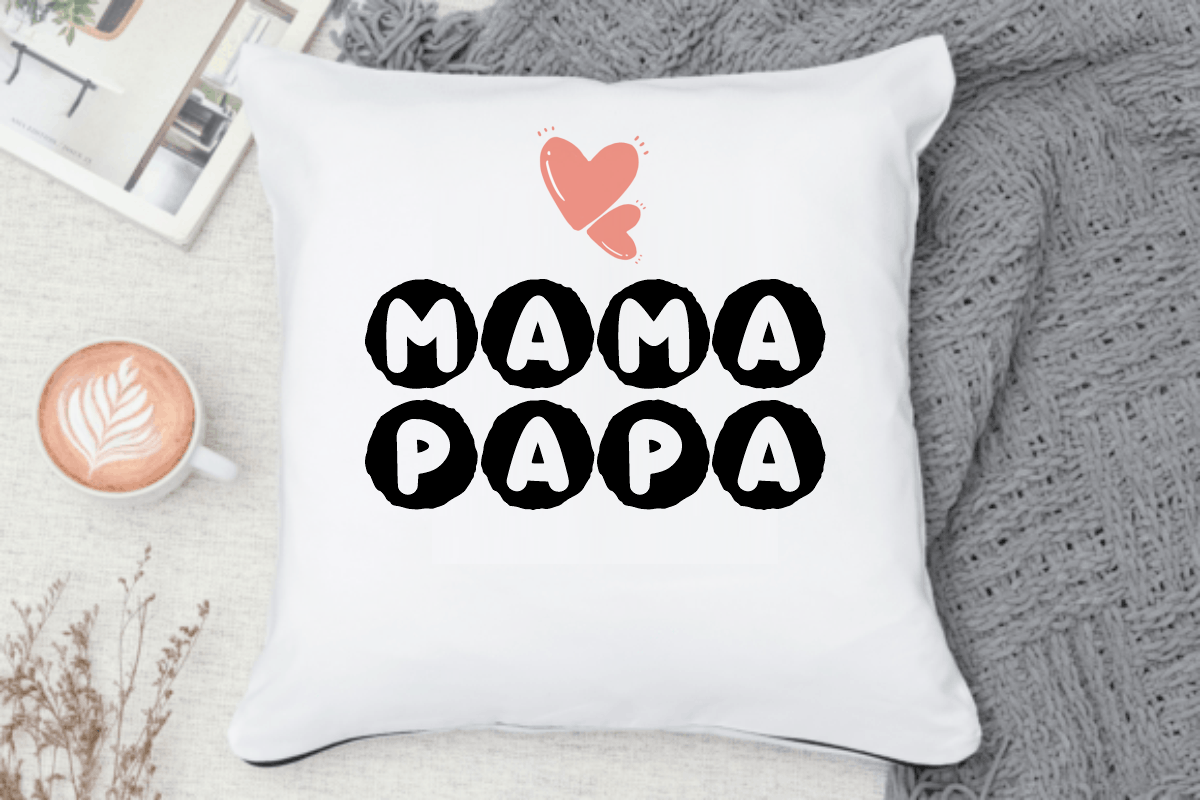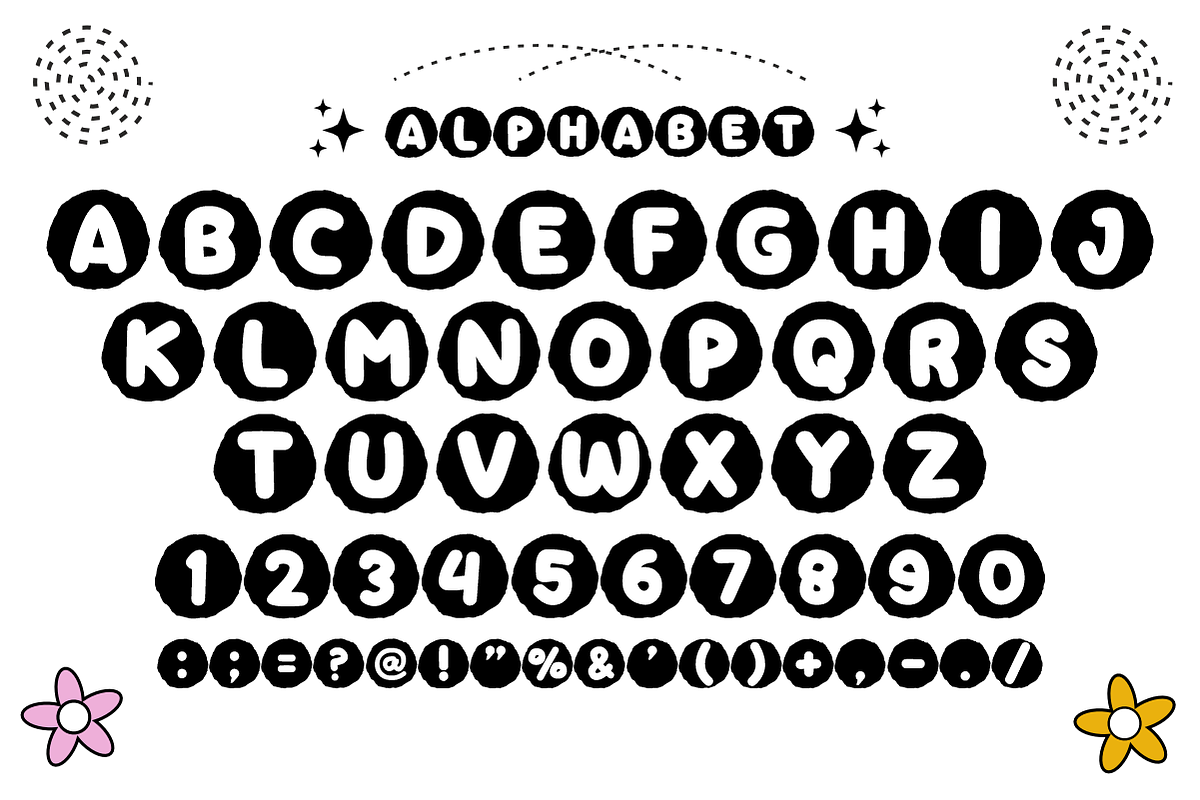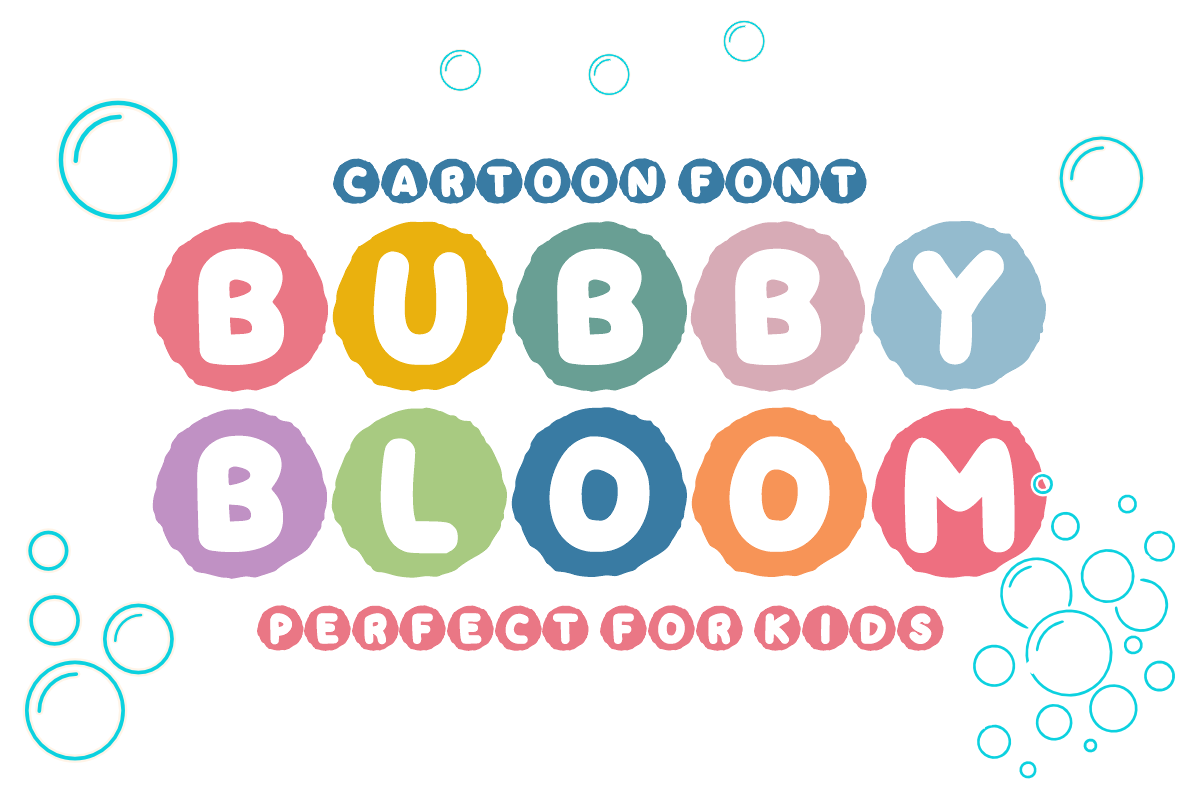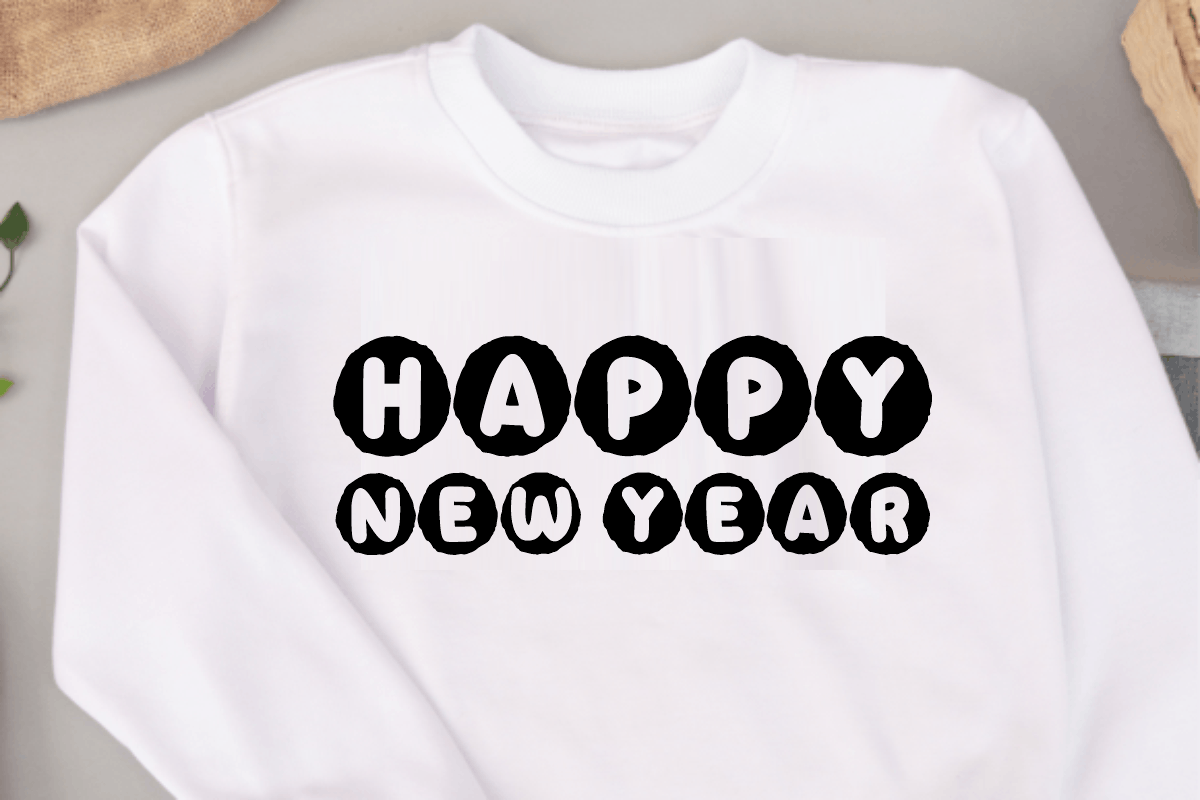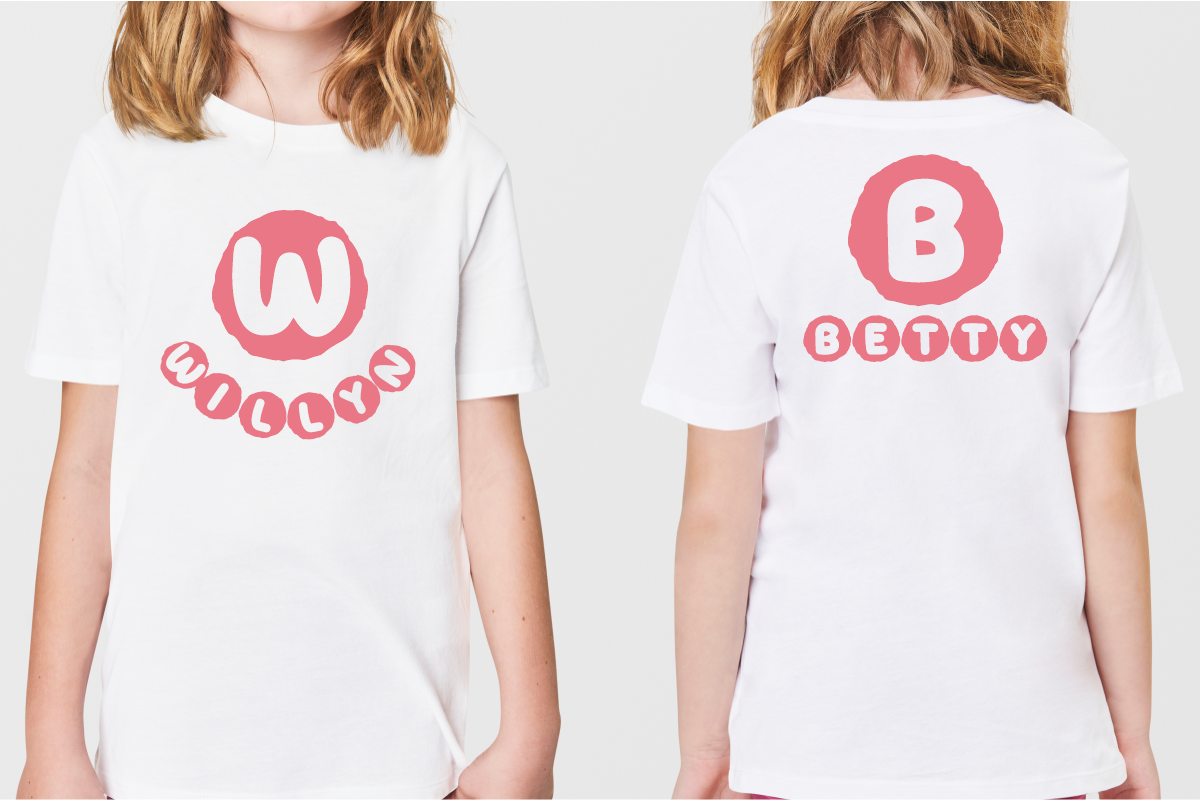
Bubble Bloom - Cute Kids Font
Bubble Bloom is a cheerful, round display font featuring cute white bubble letters set inside playful blob frames. Full of bright and whimsical energy, this fun cartoon font is perfect for children's books, school projects, custom stickers, and vibrant nursery crafts. Every character is cleanly vectorized for high-resolution prints and smooth, effortless cutting on Cricut and Silhouette machines.